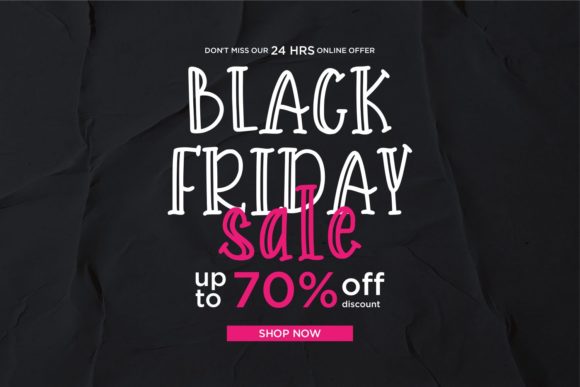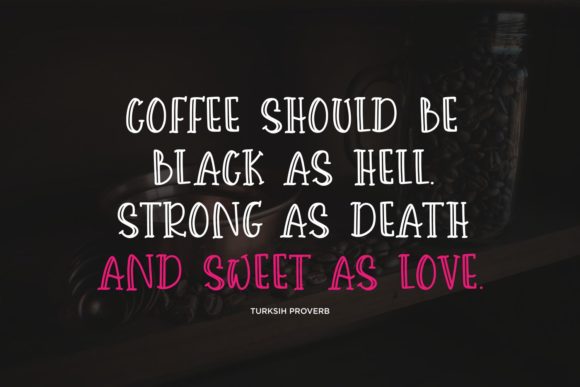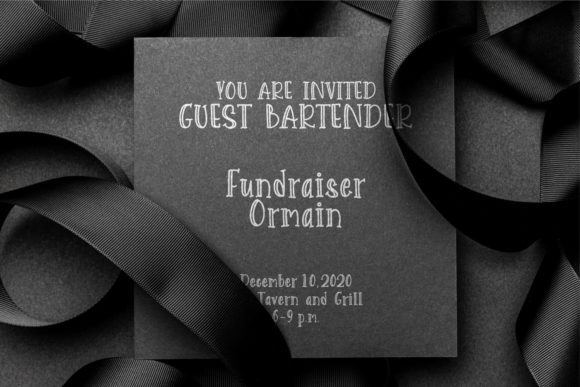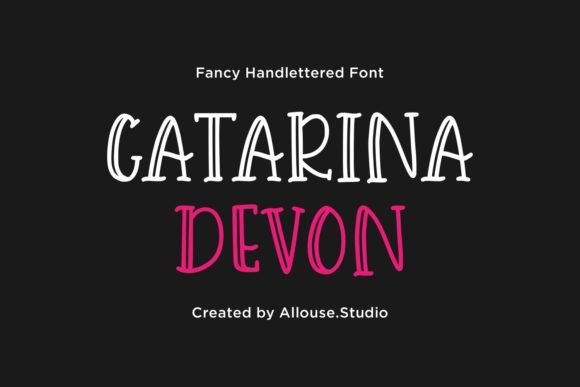
Introduction to Catarina Devon Font
Catarina Devon is a simple and casual display font.
It fits any branding, product packaging, invitation, quote, t-shirt, label, poster, logo that you wish to develop .